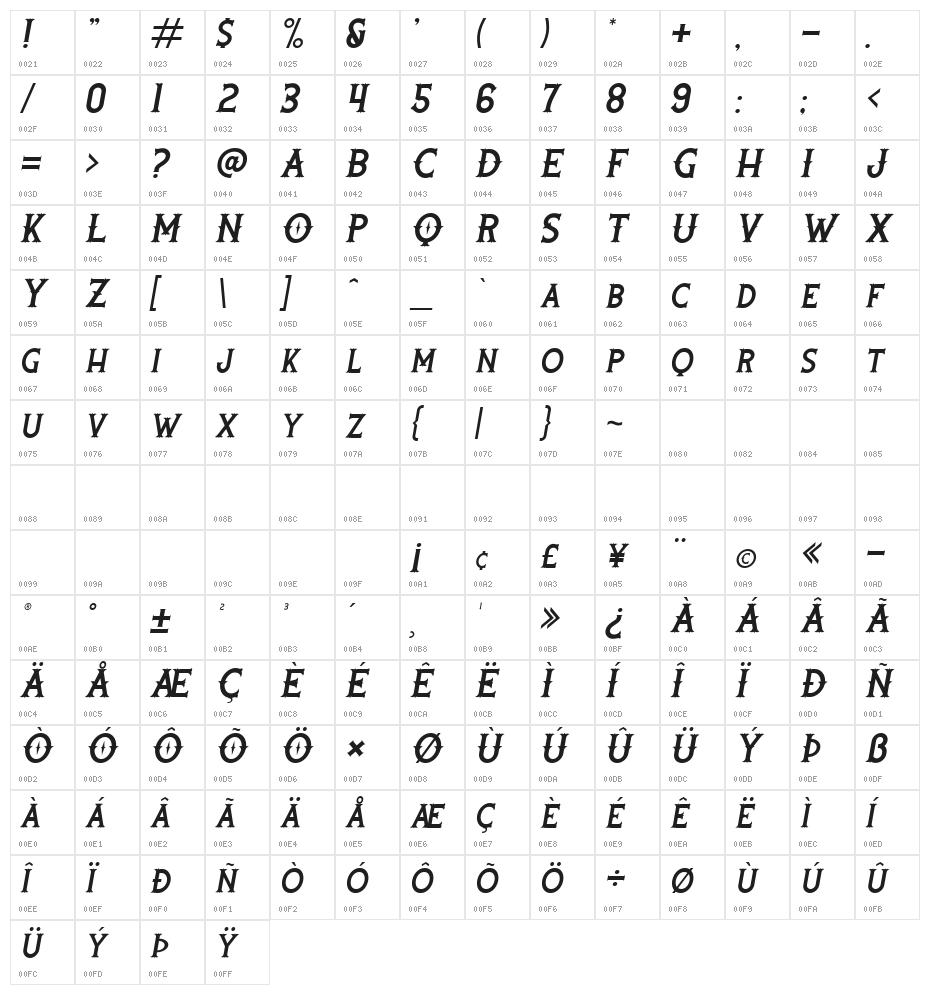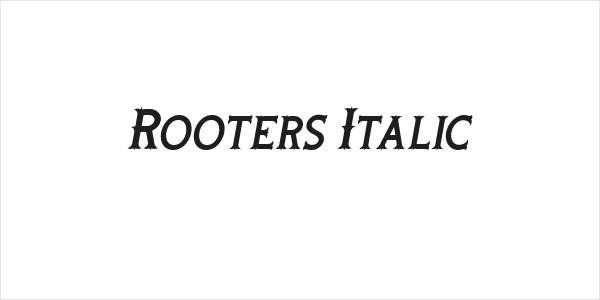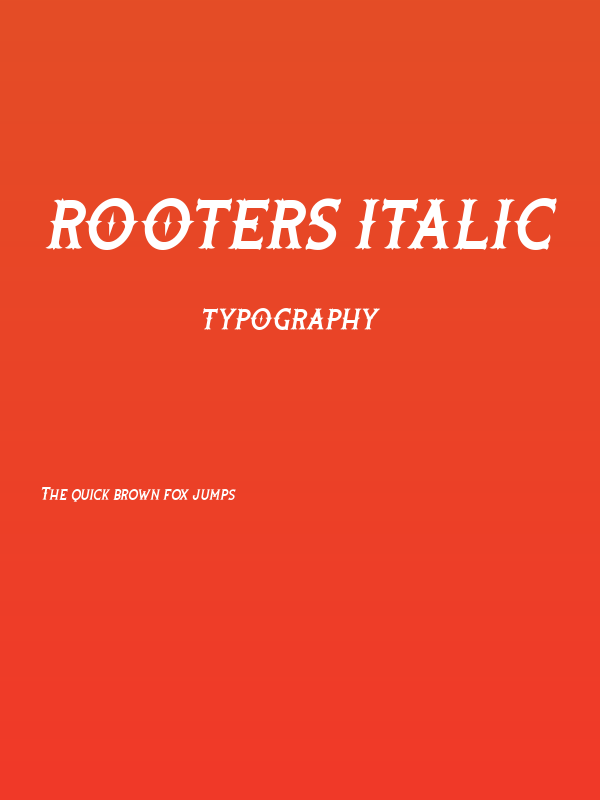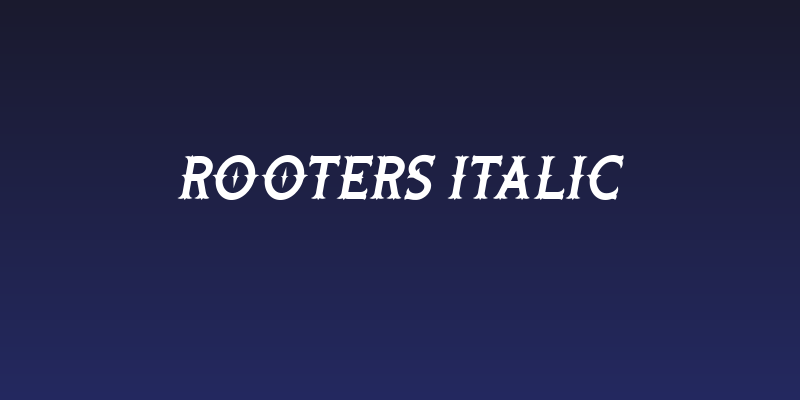
Rooters Italic Font
Rooters Italic Description
This font features a dynamic and bold italic style with a distinct decorative flair. The characters are adorned with sharp, angular serifs that give them a unique, edgy appearance. The strokes are thick and consistent, providing a strong visual impact. The numerals and special characters maintain the same boldness and decorative style, ensuring uniformity across all glyphs. The italic slant adds a sense of motion and energy, making it suitable for attention-grabbing designs.
Proposed ProjectsIdeal for branding, poster design, and headlines where a bold statement is needed.